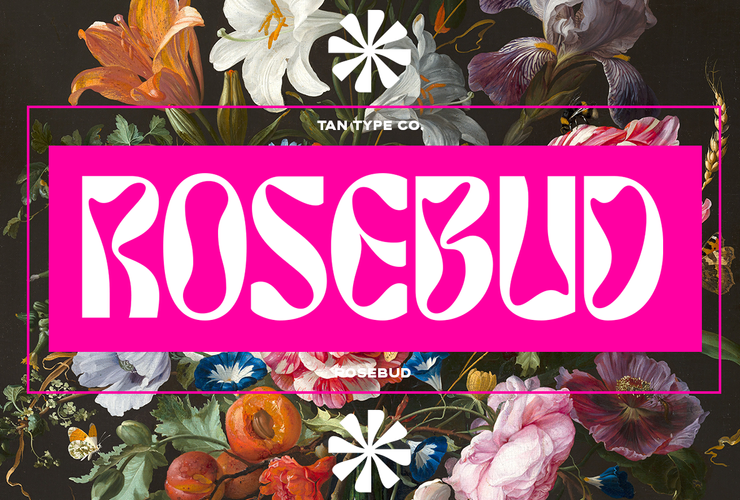
TAN Rosebud Font Free Download
What TanType says about the design
TanType’s own description is one line long. The listing calls TAN Rosebud “a retro inspired typeface” and “a contemporary font with lots of psychedelic twist, perfect for making statement.” That is the whole brief from the designer.
Creative Market groups the listing with searches for psychedelic, groovy, 60s and 70s retro fonts. The listing carries 15 preview images. We have not examined the font files, so we will not describe individual letters here. Look at the official previews on the listing before you buy, because a psychedelic display face only works if its shapes suit your project.
In short, TAN Rosebud is sold as a statement font. TanType does not pitch it for body copy, and a design built around a “psychedelic twist” is a headline tool rather than a reading face.
Is it the right Rosebud?
Several unrelated fonts share the Rosebud name. One example is Graphicfresh’s Rosebud, a vintage letterpress typeface that has been covered by design blogs. It is a different product from a different designer. TanType’s version appears on Creative Market as “TAN – ROSEBUD” by TanType. If you are searching for a TAN Rosebud font download, check both the TAN prefix and the TanType shop name so you license the font you actually want.
Where TAN Rosebud fits
Use it where the designer aims it: short, loud lines of text. Some good matches for a retro statement face:
- Gig posters, festival flyers and record or playlist covers
- Logos and wordmarks for cafes, vintage shops and clothing labels
- T-shirt prints, stickers and merch
- Social graphics and thumbnails that need one bold headline
For supporting text, pick a calm sans-serif so the display font stays the focus. DM Sans, Work Sans and Inter are free options on Google Fonts with several weights for subheads and body copy. Keep TAN Rosebud to the headline and let the sans carry everything else.
Who designed TAN Rosebud?